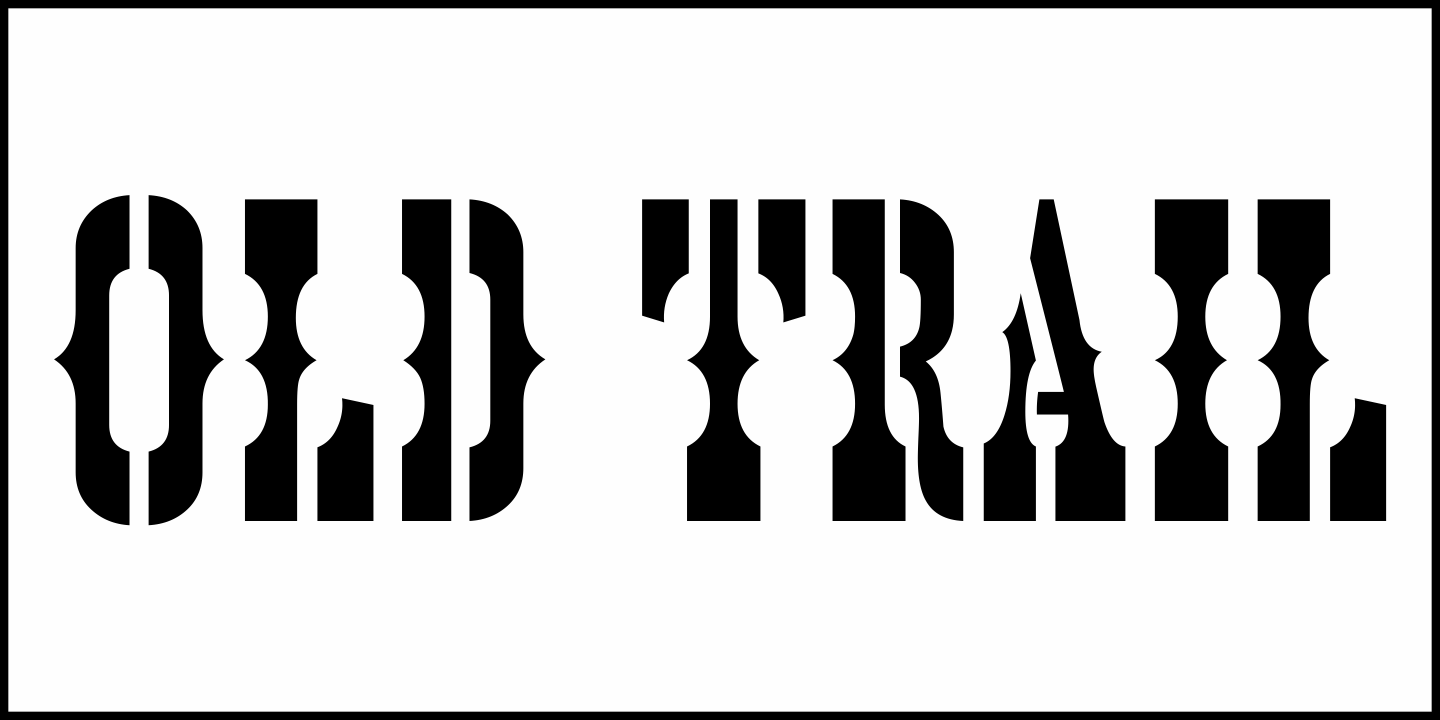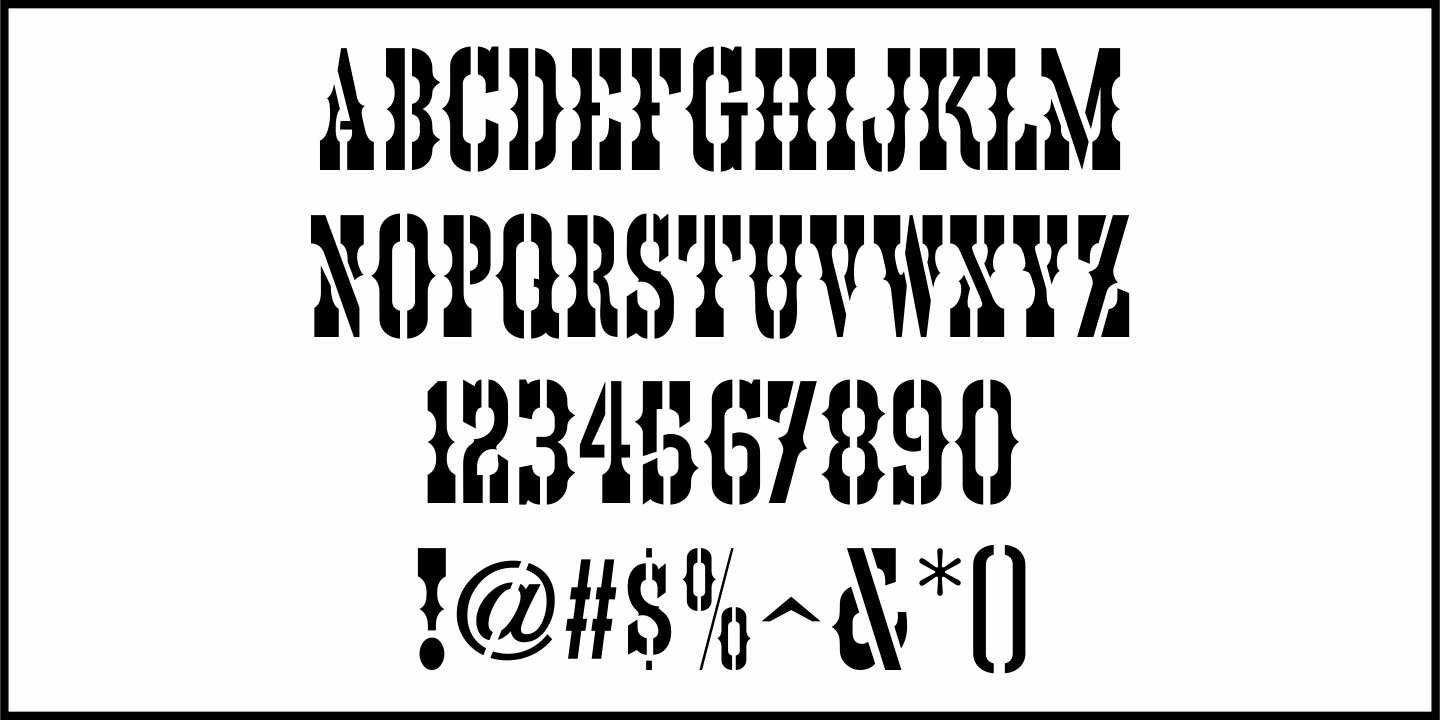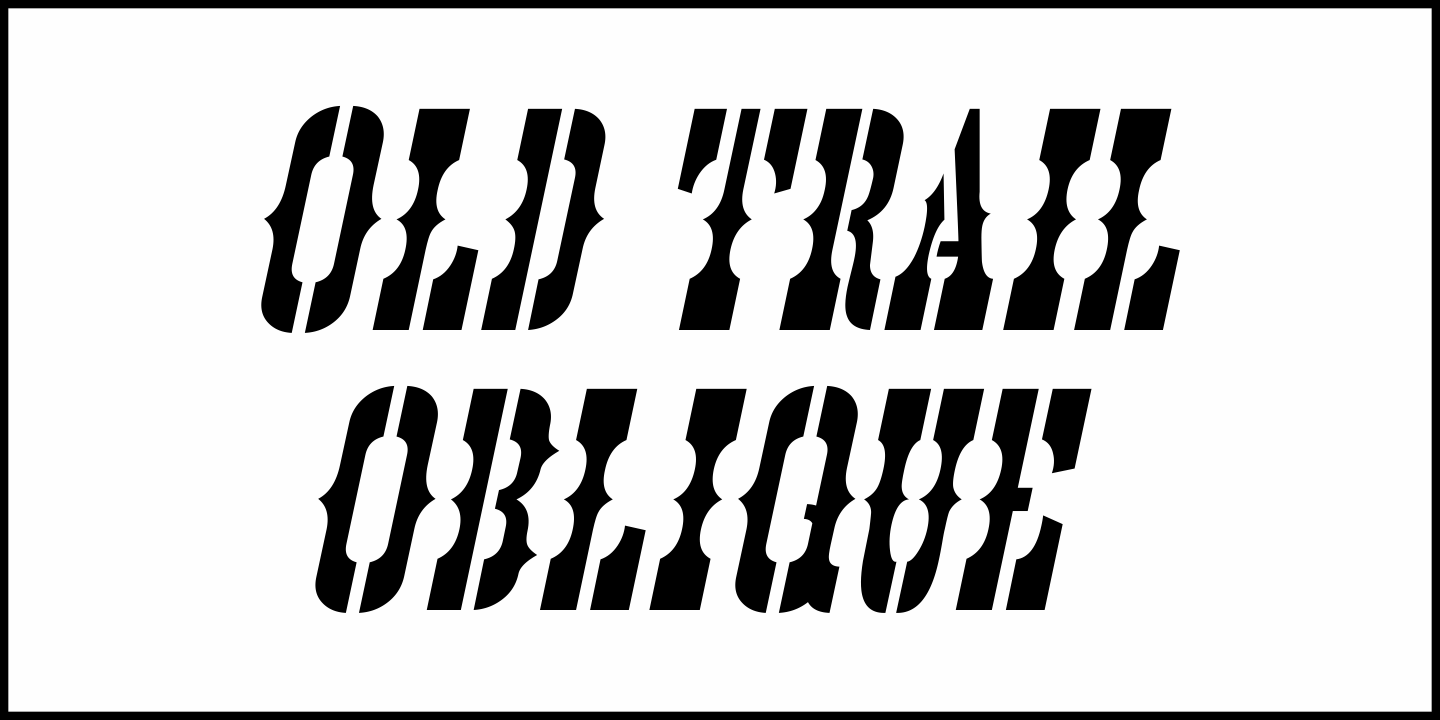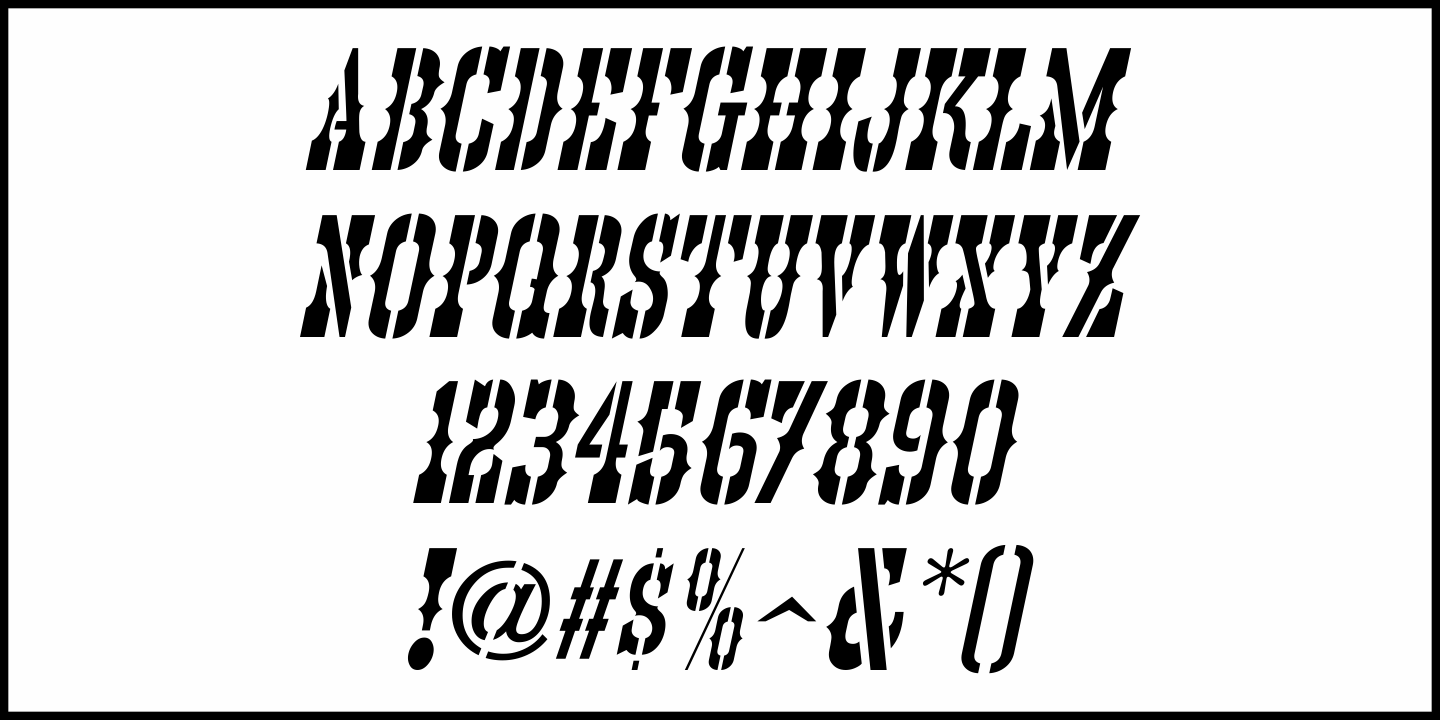
Old Trail
An image of an antique metal marking stencil [circa late 1890s or early 1900s] reading “Folck’s Roller Mills #196 New Surprise manufactured by Wolfe Brothers, Cumberland, MD” had the words “New Surprise” rendered in a Western/Victorian typeface.
Those letters served as the model for Old Trail JNL, which is available in both regular and oblique versions.
Old Trail JNL Regular by Jeff Levine Fonts